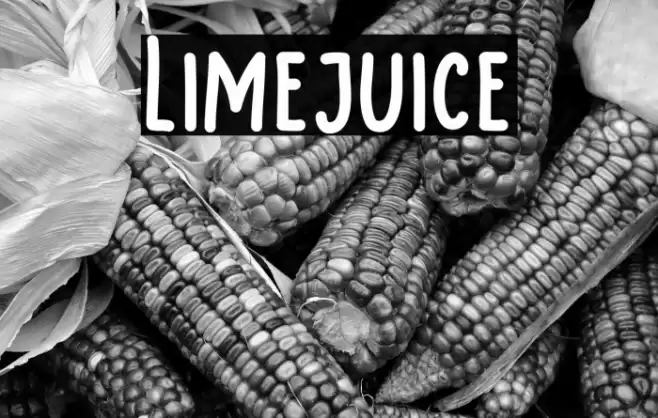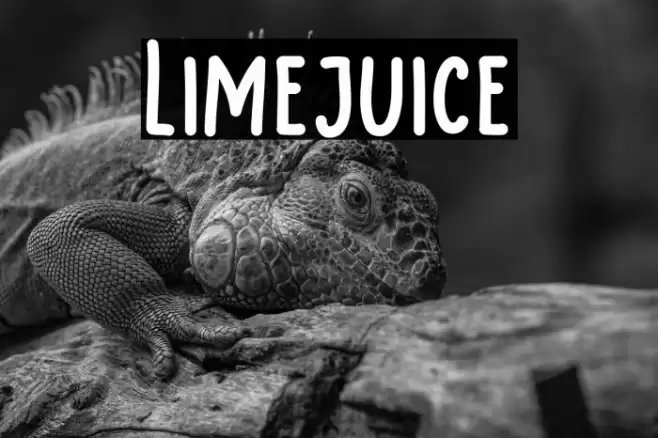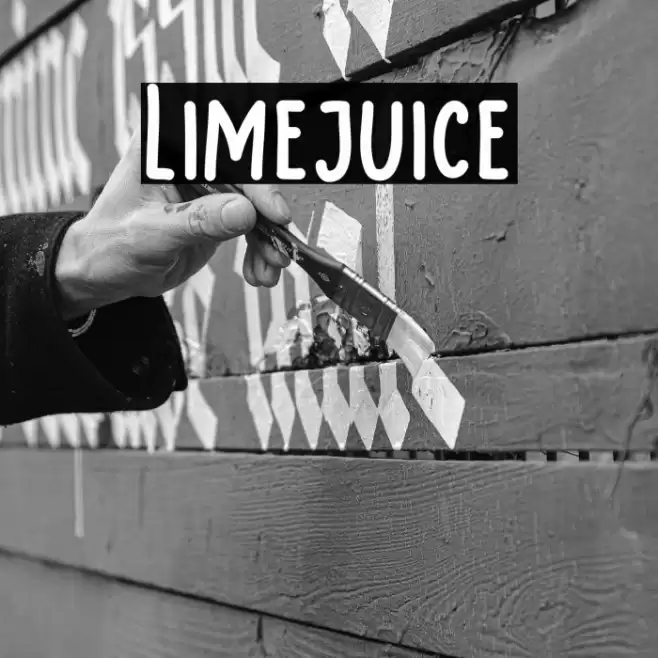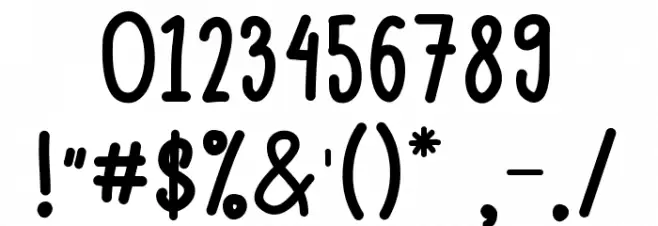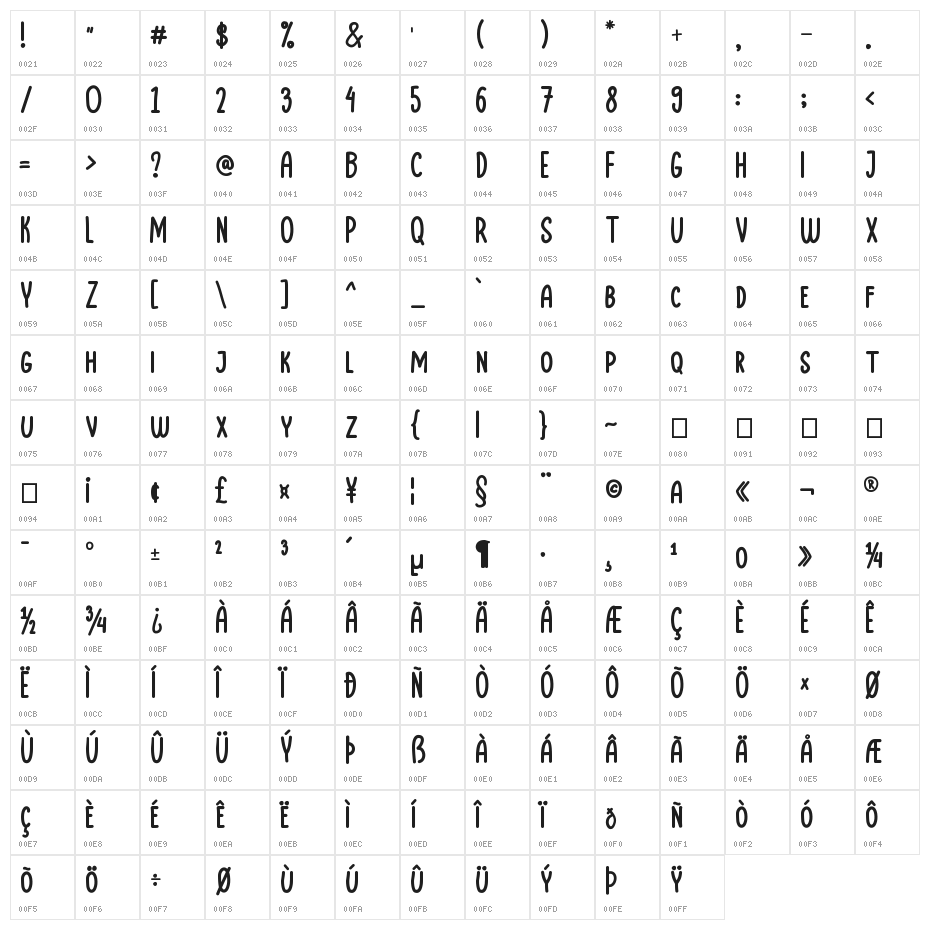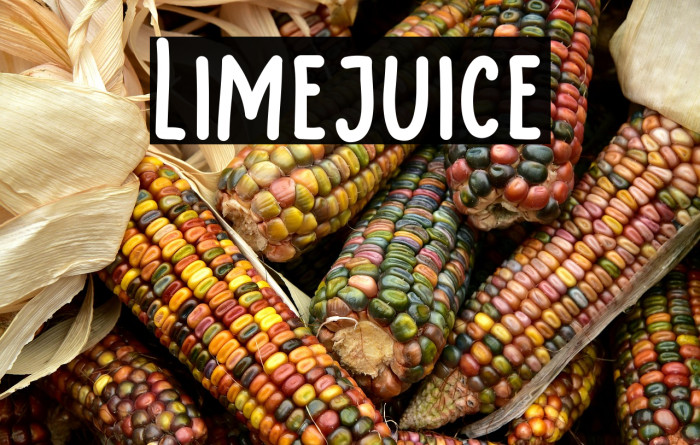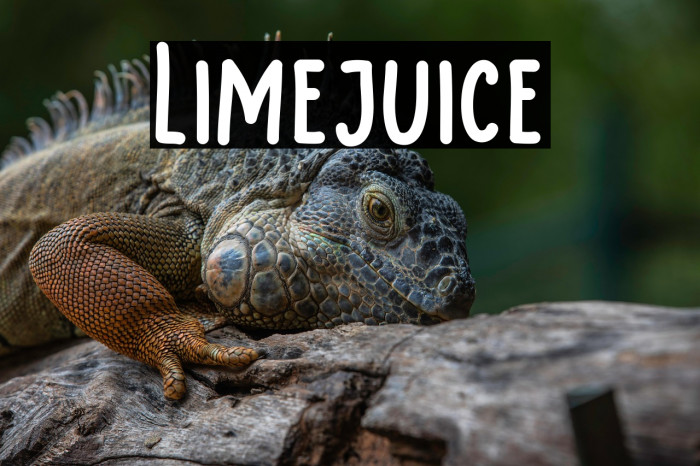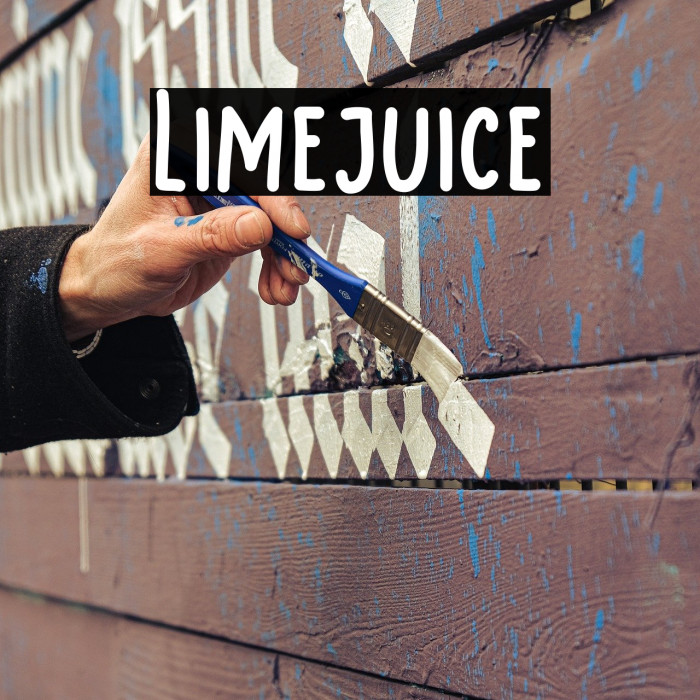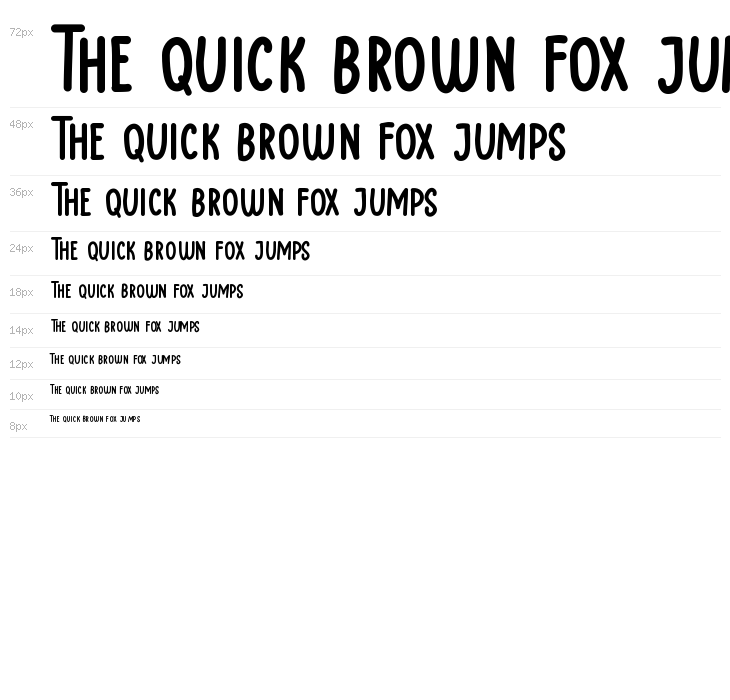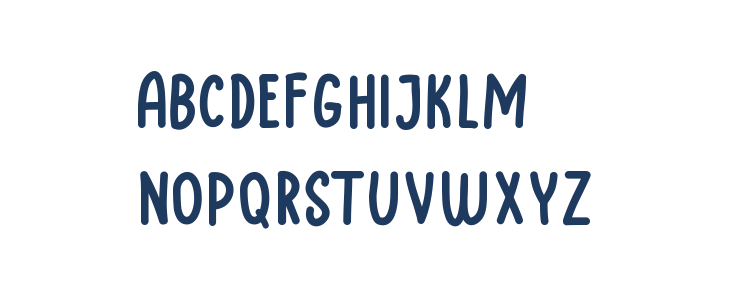
Limejuice Font
Limejuice Description
This font features a playful and informal style, characterized by its rounded and slightly irregular letterforms. The strokes are consistent in thickness, giving it a uniform appearance while maintaining a hand-drawn feel. The uppercase and lowercase letters are well-balanced, with a slight tilt that adds to its casual charm. The numerals and special characters follow the same design principles, ensuring a cohesive look across all glyphs. This font is ideal for projects that require a friendly and approachable aesthetic.
A playful, hand-drawn style with rounded, consistent strokes from Uncategorized fonts.
- Proposed Projects: Perfect for children's books, casual branding, playful posters, and social media graphics.
- Overall Style: Casual